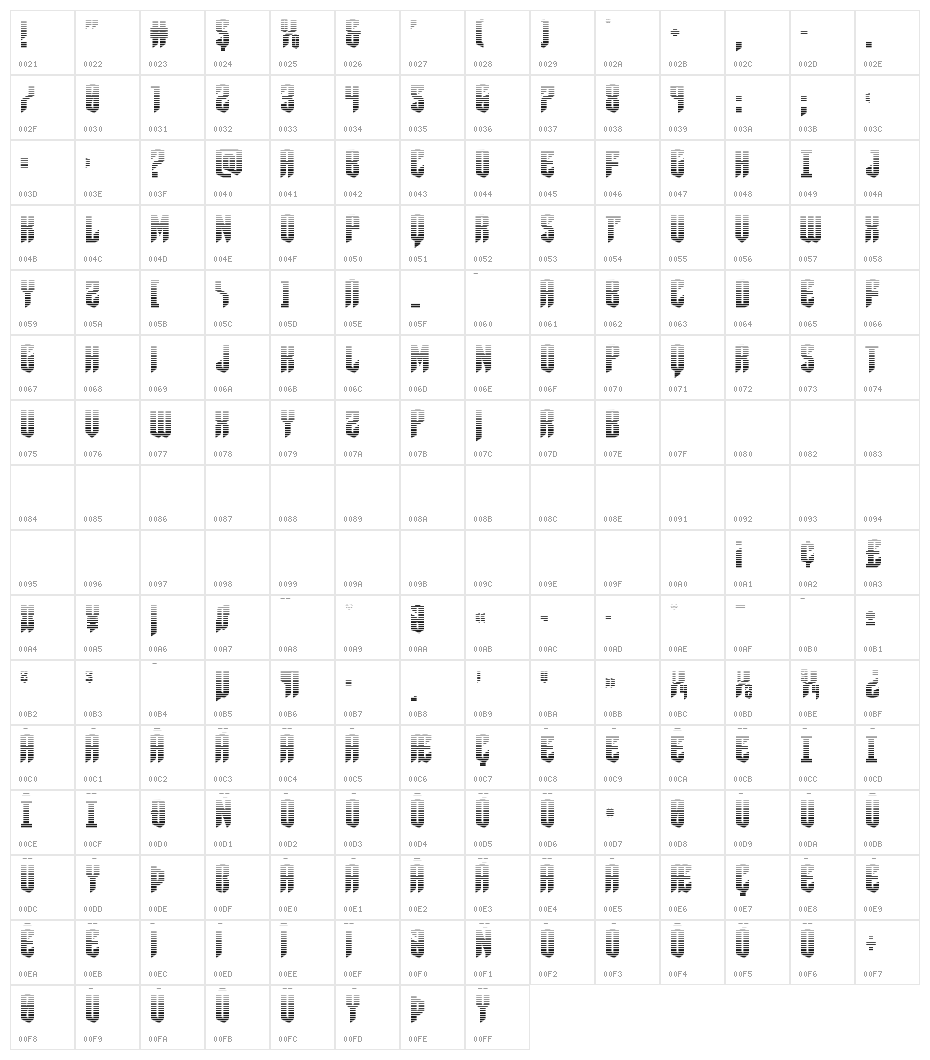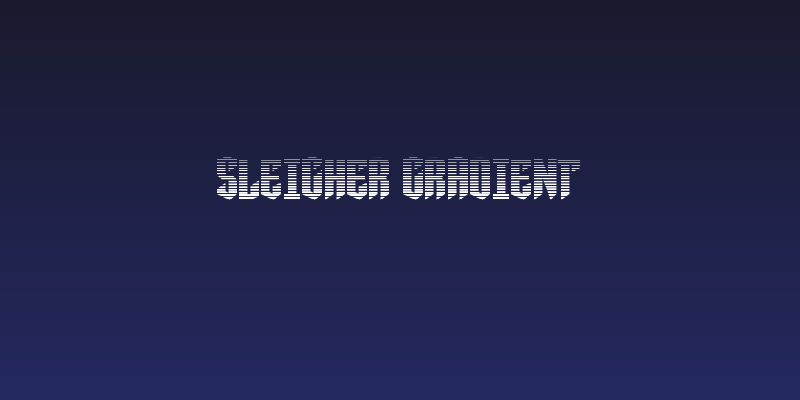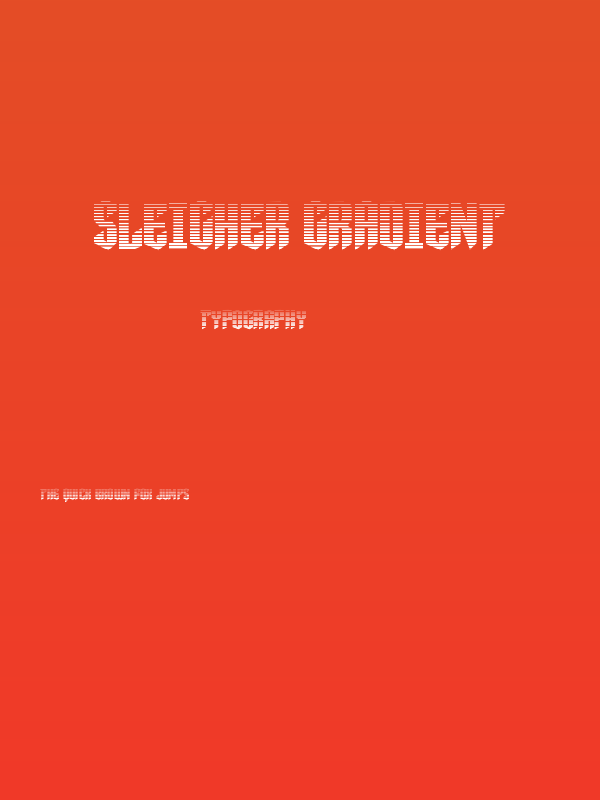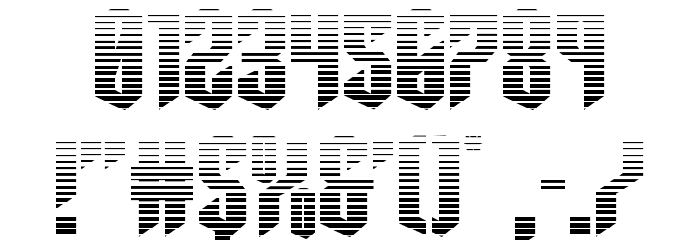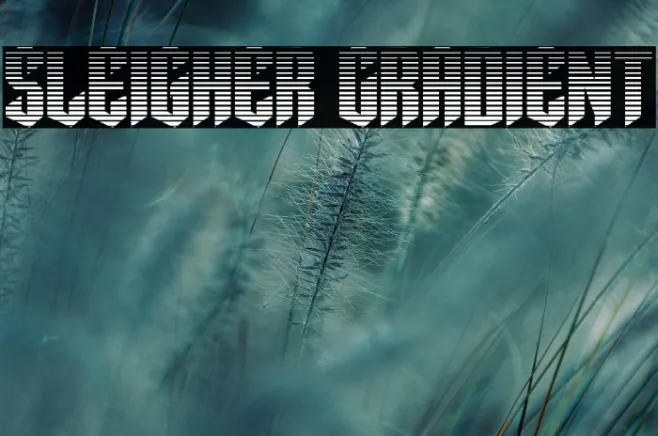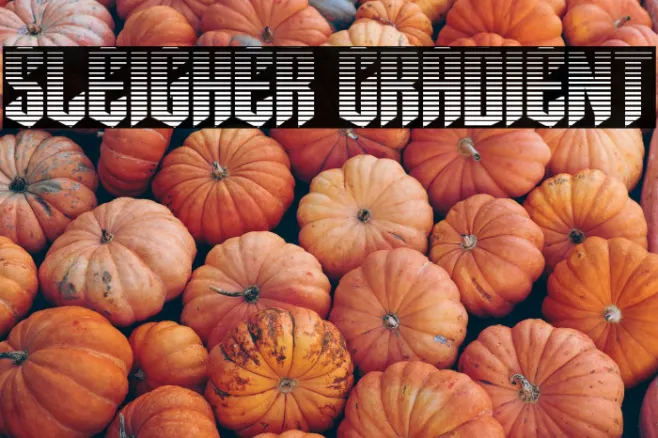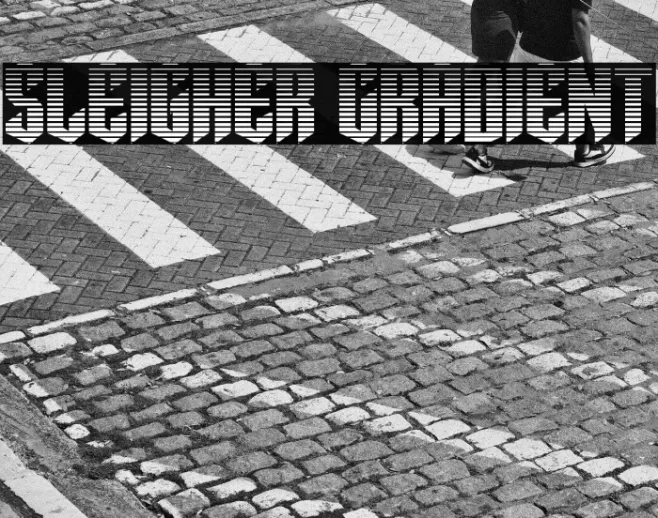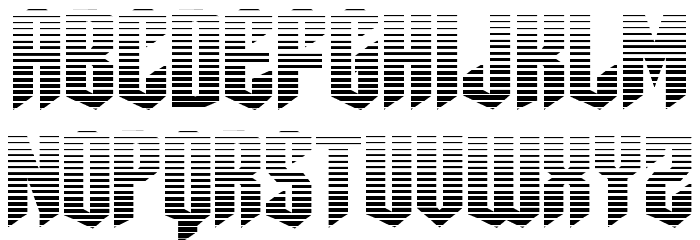
Sleigher Gradient Font
Sleigher Gradient Description
This font features a bold, decorative style with a unique gradient effect that gives it a dynamic and modern appearance. The characters are constructed with horizontal lines that create a striped pattern, adding depth and visual interest. The uppercase and lowercase letters maintain a consistent design, with sharp angles and geometric shapes that enhance its futuristic look. The numbers and special characters follow the same design principles, ensuring uniformity across all glyphs. This font is ideal for projects that require a striking and contemporary aesthetic.